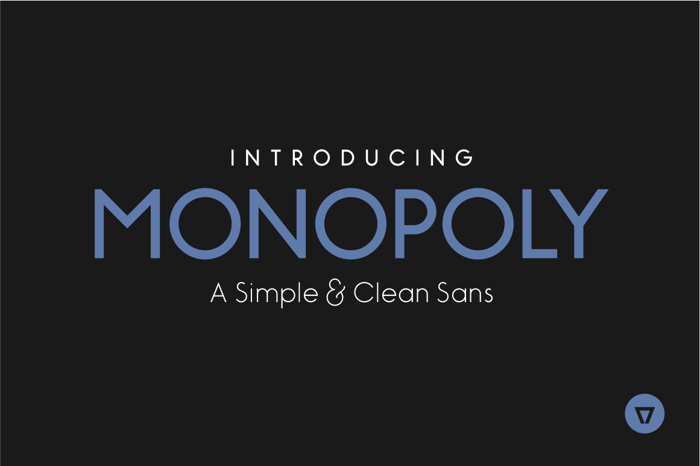
Monopoly Inline Font
Monopoly is a modern, simple and clean monolinear sans-serif. It has a complete western character set and comes in 3 styles: Light, Bold and Bold Inline giving it the versatility and unique look needed for your design project.